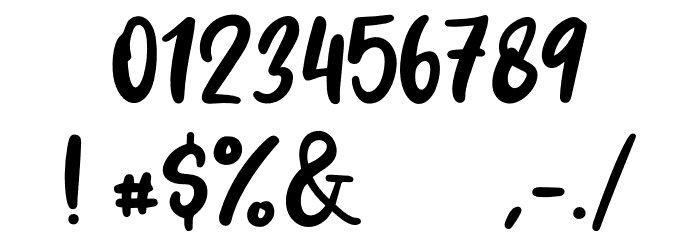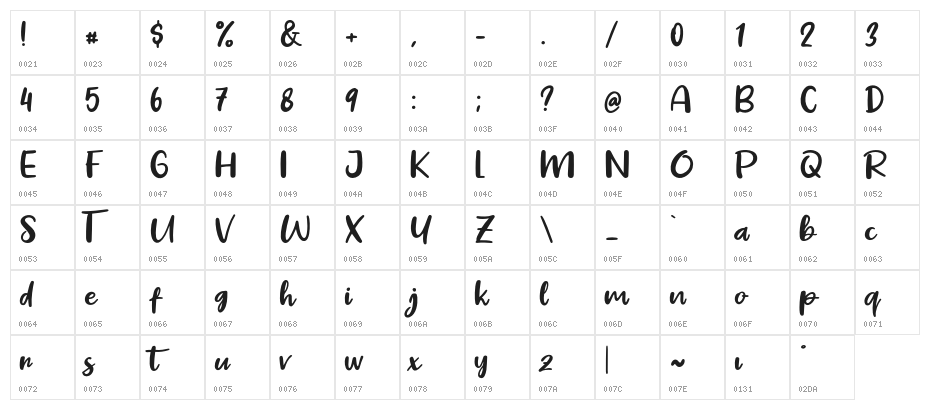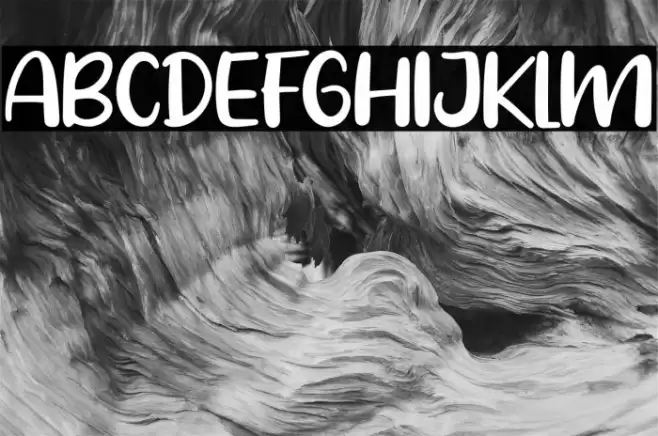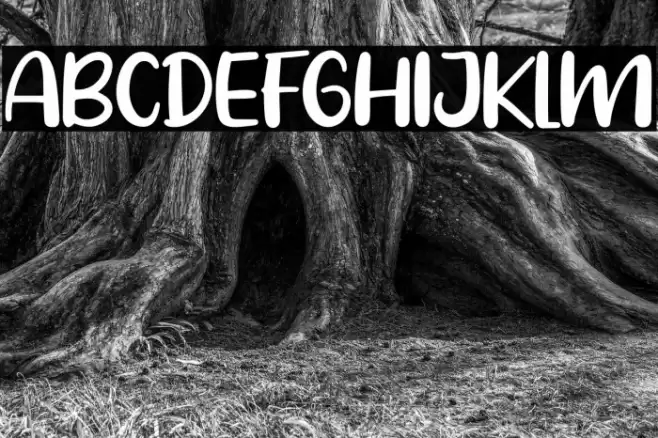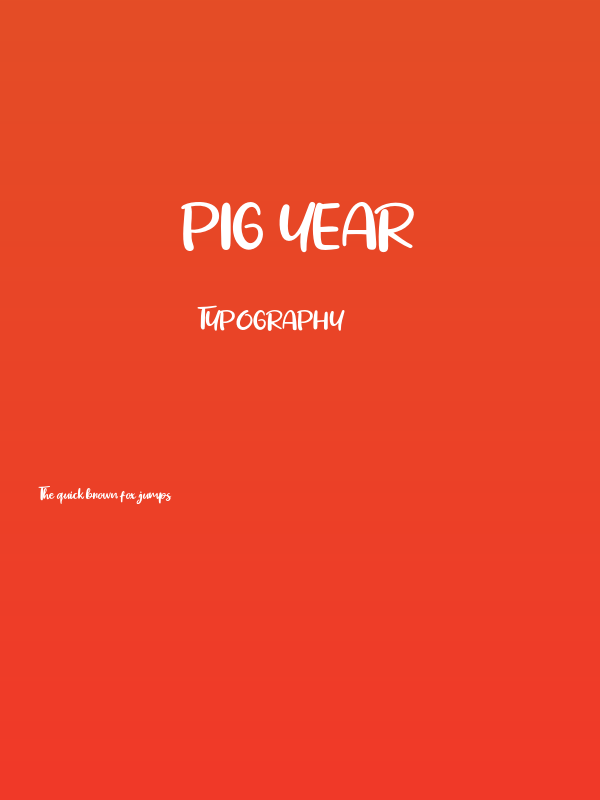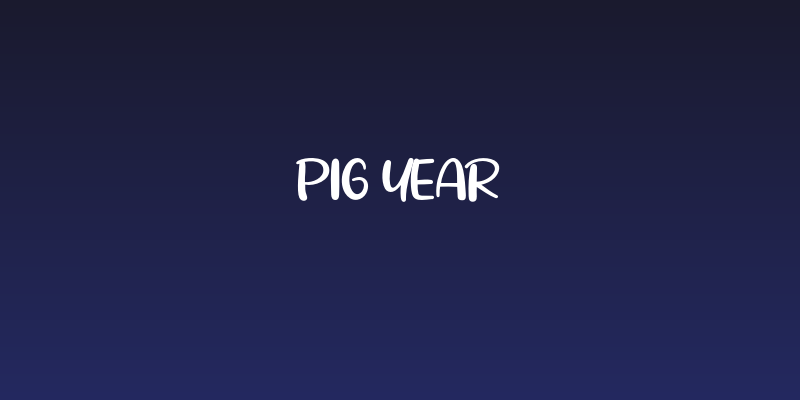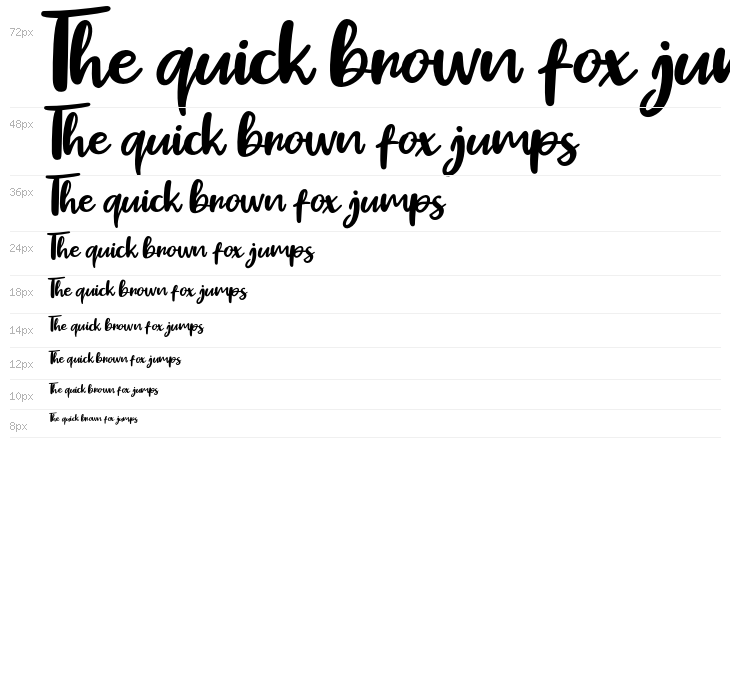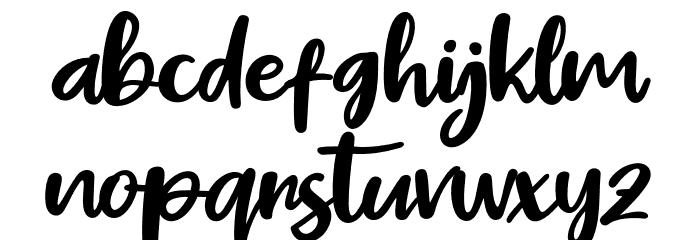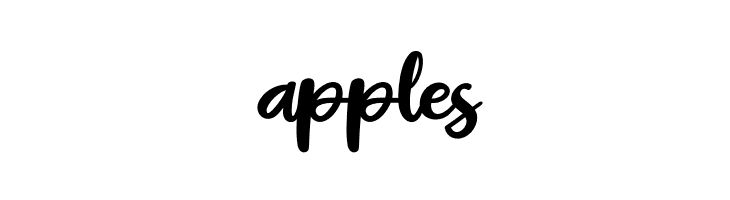
Pig Year Font
Pig Year Description
This font features a playful and energetic handwritten style, characterized by its bold and flowing strokes. The uppercase letters are rounded and slightly condensed, giving a sense of movement and dynamism. The lowercase letters maintain a consistent style, with smooth curves and a casual feel. Numbers and special characters are designed to match the overall aesthetic, making them versatile for various uses. The font's informal and lively appearance makes it suitable for creative projects that require a personal touch.
| Overall Style | Playful, Energetic, Casual |
| Use Case | Headlines, Logos, Social Media Graphics |
| Proposed Projects | Ideal for greeting cards, invitations, social media graphics, and branding projects that require a personal and energetic touch. |